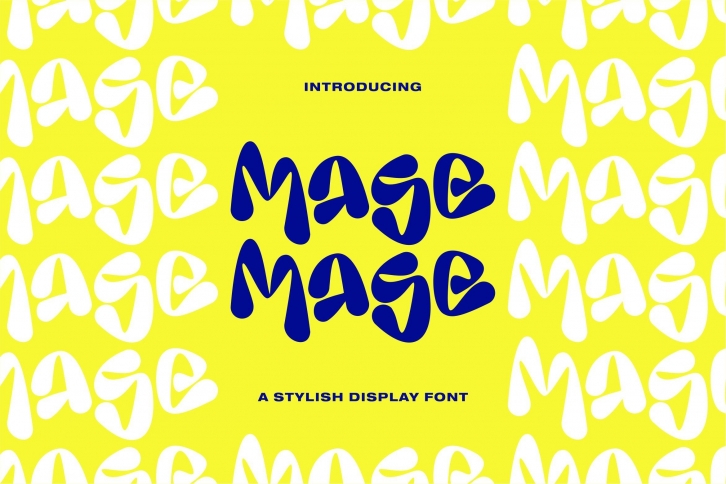
Mage is a stylish and cool display font. This font is neatly crafted and highly detailed. Whatever the topic, this font will be a wonderful asset to your font library, as it has the potential to enhance any creation.